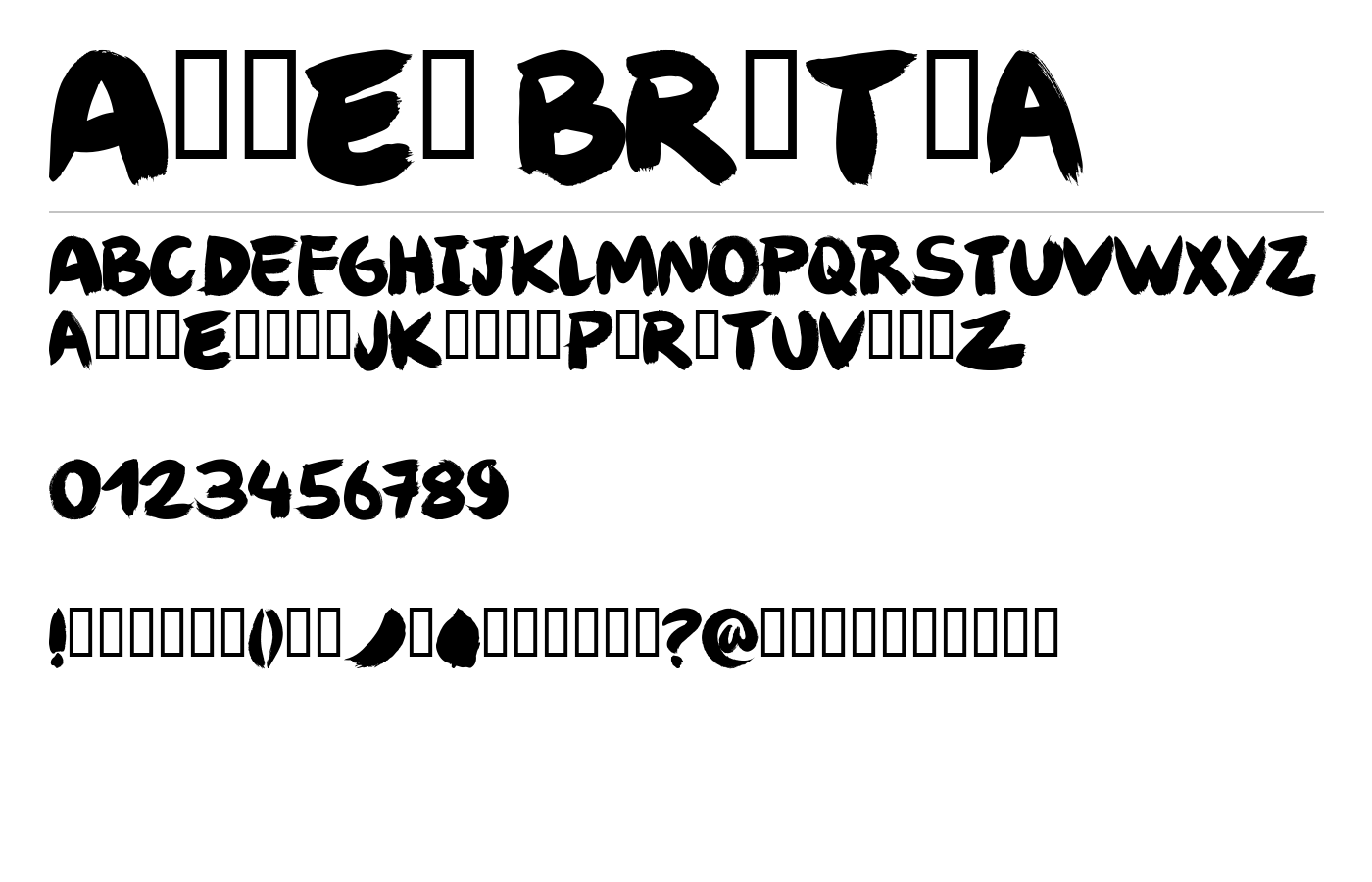
Angel Brotxa is a bold, expressive brush-style sans serif font characterized by its rough, hand-painted strokes and lively texture. Its thick, uneven lines and dynamic letterforms evoke an energetic and informal mood, making it ideal for creative branding, posters, and playful headlines that seek a casual, artistic vibe. This font works best where a bold, handcrafted look is desired to convey personality and spontaneity.
Angel Brotxa Font
About Angel Brotxa Font